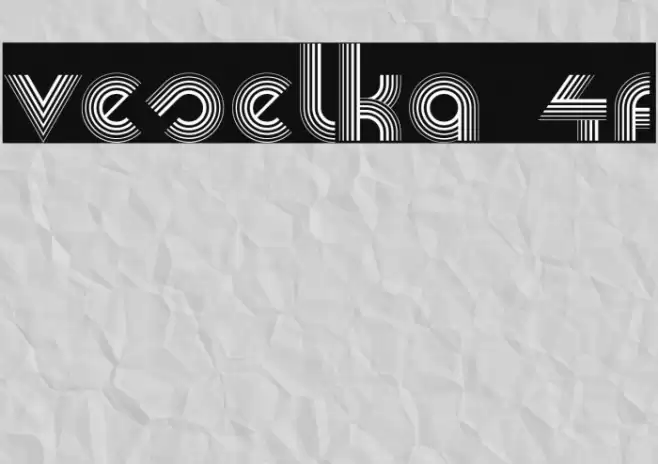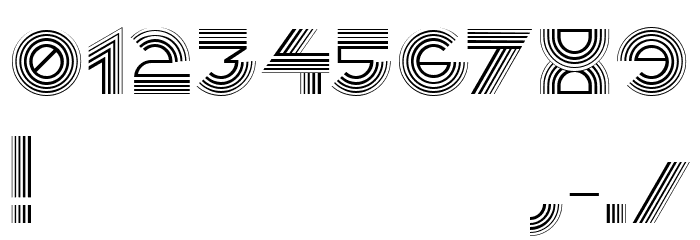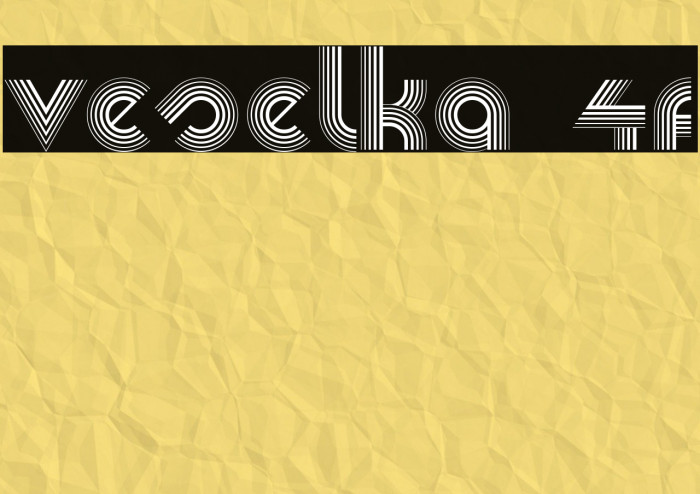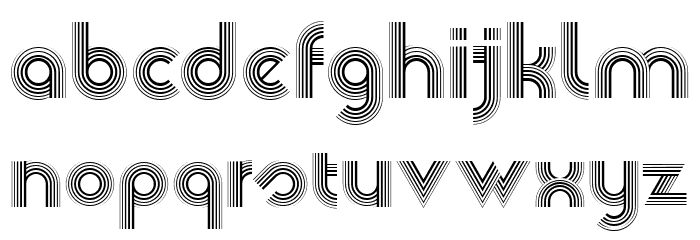
Veselka 4F Font
Veselka 4F Description
This font features a unique and modern design with a distinct multi-line pattern that creates a sense of depth and movement. Each character is composed of parallel lines that form the letter shapes, giving it a futuristic and dynamic appearance. The font maintains a consistent line thickness throughout, which contributes to its cohesive look. The geometric structure of the letters is both bold and eye-catching, making it suitable for creative and artistic projects. The spacing between characters is uniform, ensuring readability while maintaining its decorative style.
A modern, multi-line decorative font with a geometric and dynamic design from Uncategorized fonts.